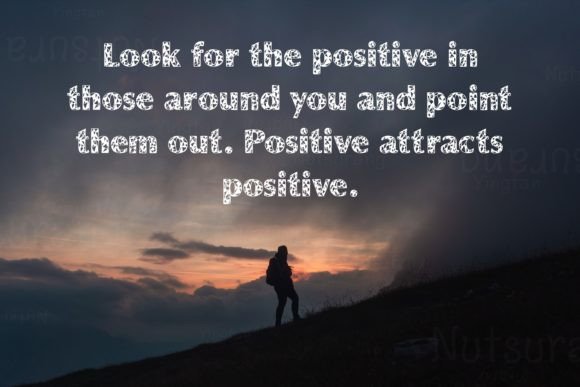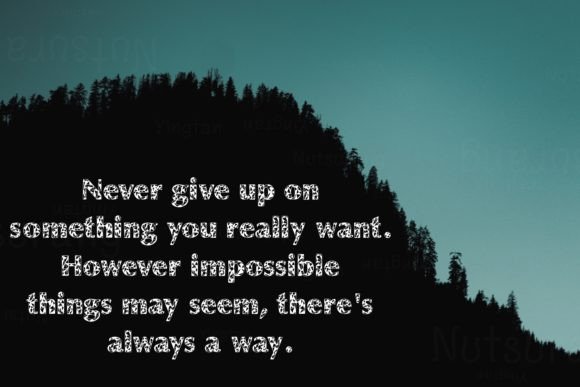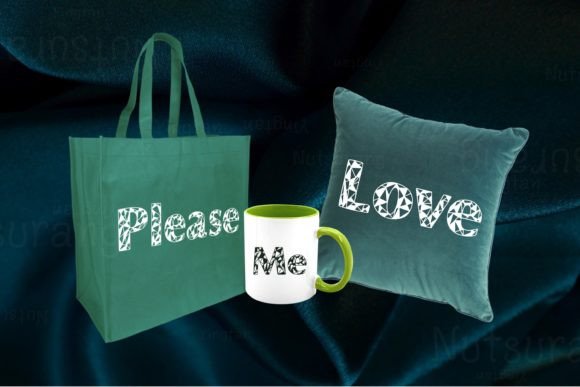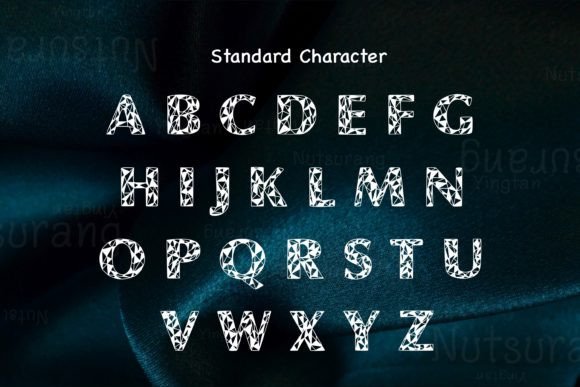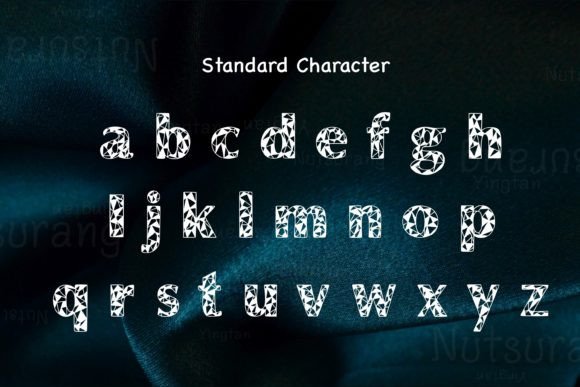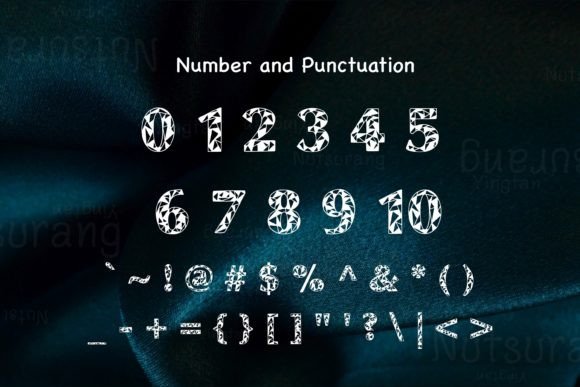
Diamond Font: Add a Touch of Luxury to Your Designs
Diamond is a cool and unique decorative font that can make your projects shine with incredibly gorgeous text. If you’re a designer or crafter looking for a way to add a touch of luxury to your work, Diamond Font is an excellent choice. In this article, we’ll explore the features and benefits of Diamond Font, and show you how to use it to take your designs to the next level.
What is Diamond Font?
Diamond Font is a decorative font that features intricate and elegant designs. The font is inspired by the luxury and sophistication of diamonds, and its unique style is sure to make your projects stand out. With its beautiful and intricate details, Diamond Font is perfect for a wide range of design applications, from crafting and scrapbooking to graphic design and digital art.
Features of Diamond Font
Diamond Font has several features that make it a great choice for designers and crafters. Some of its key features include:
- Unique and decorative design: Diamond Font features a unique and decorative design that is sure to add a touch of luxury to your projects.
- Elegant and sophisticated: The font’s elegant and sophisticated style makes it perfect for high-end designs and projects.
- High-quality design: Diamond Font is designed with high-quality graphics, ensuring that it looks great in any size or resolution.
Benefits of Using Diamond Font
There are several benefits to using Diamond Font in your designs. Some of the benefits include:
- Adds a touch of luxury: Diamond Font adds a touch of luxury and sophistication to your designs, making them stand out from the crowd.
- Perfect for high-end designs: The font’s elegant and sophisticated style makes it perfect for high-end designs and projects.
- Versatile: Diamond Font can be used for a wide range of design applications, from crafting and scrapbooking to graphic design and digital art.
- Easy to read: Despite its decorative design, Diamond Font is easy to read, making it perfect for use in titles, headings, and other design elements.
Tips and Tricks for Using Diamond Font
Here are some tips and tricks for using Diamond Font:
- Use it sparingly: Diamond Font is a decorative font, so use it sparingly to add emphasis to your design.
- Pair it with other fonts: Pair Diamond Font with other fonts to create a unique and interesting design.
- Experiment with colors and textures: Experiment with different colors and textures to add depth and interest to your design.
- Use it for titles and headings: Use Diamond Font for titles and headings to add a touch of luxury to your design.
Diamond Font is a cool and unique decorative font that can add a touch of luxury to your designs. With its elegant and sophisticated style, Diamond Font is perfect for high-end designs and projects. Whether you’re a designer or crafter, Diamond Font is a great choice for adding a touch of glamour to your work. So why not give it a try and see how it can make your projects shine?